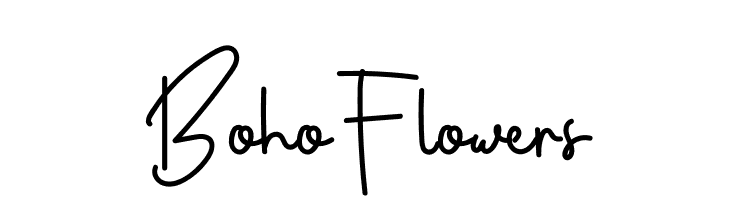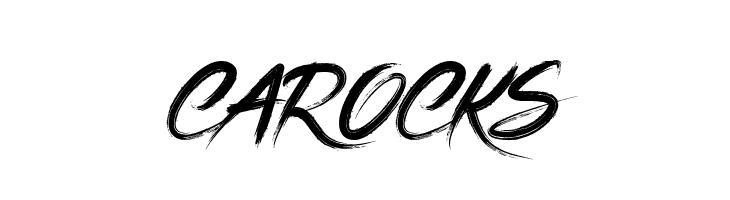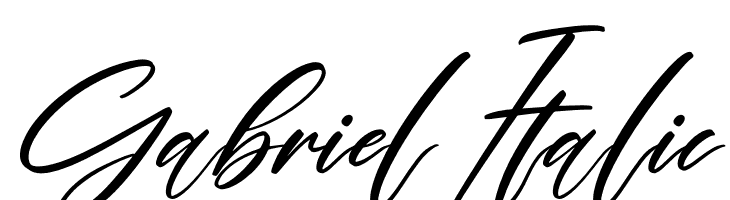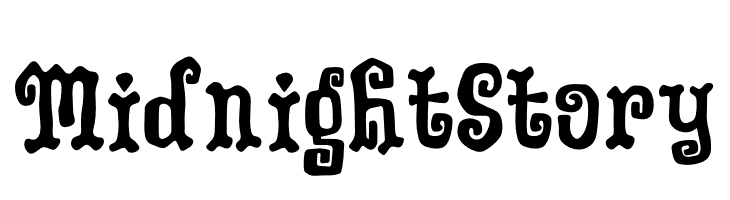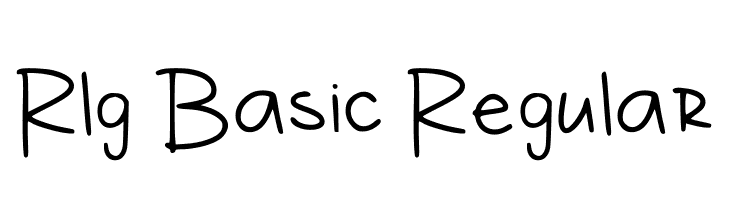
A dynamic brush script font with bold, sweeping strokes and a modern, edgy style.
A lively and elegant script font with flowing, interconnected letterforms.
A geometric, modern font with a blocky, structured design and uniform stroke width.
An intricate, decorative script font with elaborate loops and swirls.
A bold, geometric font with a filled, three-dimensional style.
A sophisticated cursive script font with a seamless, flowing style.
An elegant script font with flowing, ornate characters and intricate loops.
A playful, handwritten font with a casual and friendly style.
A bold, italicized font with dynamic slants and strong geometric forms.
A bold, textured blackletter font with a vintage gothic style.